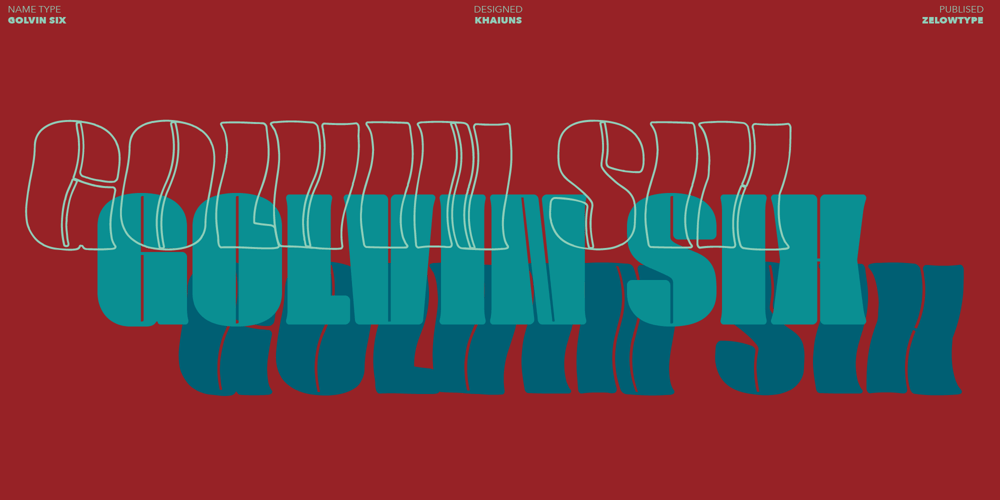
Golvin Six Font Family was designed by Khair Unnas and published by Khaiuns. Golvin Six contains 4 styles and family package options. Golvin Six is a fun, cool and retro style. Comes with 4 unique bold and outline serif styles, a regular style with consistent thickness and stability, another with a wavy style that makes your design project more unique.Golvin Six can easily fit into a very large range of projects such as posters, book covers, logotypes, stickers and much more, so add it to your creative ideas and watch how it makes it stand out! I hope you have a blast using Golvin SixThanks for use this font ~ Khaiuns X zelowtype